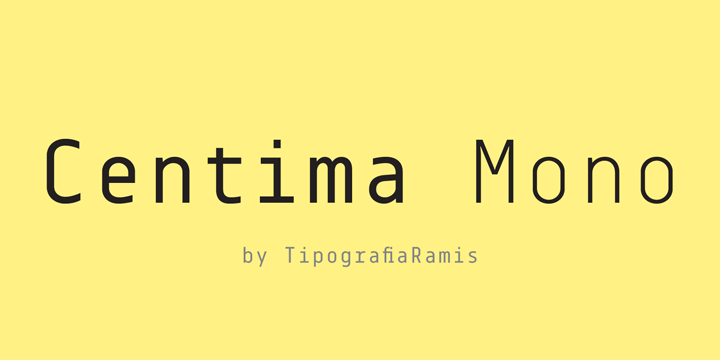
Centima Mono Font is perfect for programming code editors, technical software interfaces, financial data displays, scientific research documentation, terminal application screens, coding bootcamp materials, data analysis dashboards, system administration tools, software development platforms, and professional programming education resources. Its precise monospaced character makes it ideal for projects requiring coding clarity and technical precision authenticity.
What makes Centima Mono Font exciting is its intelligent embodiment of coding precision and technical clarity with balanced letterforms and programming-optimized characteristics that capture the essence of modern software development and technical communication excellence. The font features equal character widths, optimized programming legibility, and systematic character construction that create authentic technical atmosphere and coding appeal. Its professional personality brings clarity and efficiency to contemporary designs while maintaining the precision essential for code readability and technical presentations. The carefully engineered monospaced elements ensure perfect alignment while preserving the distinctive character that embodies the essence of programming excellence and technical sophistication.
Centima Mono Font comes in multiple technical variations including Light, Regular, Medium, Bold, and Code styles. Each family member maintains the distinctive monospaced character while offering comprehensive weight options for programming typography and technical brand system development. The complete font family includes programming symbols, technical ligatures, and coding punctuation marks that provide essential tools for technical communication excellence and programming presentation quality.
Whether you're developing developer tools, technical education platforms, or programming-focused projects, Centima Mono Font Free Download provides the coding precision needed to communicate with programming audiences and technical professionals who appreciate code readability and systematic design excellence. The font's technical appeal resonates with developers, software engineers, and technical educators seeking authentic programming credibility and monospaced sophistication. Its comprehensive character set includes programming symbols and technical marks, making it perfect for creating complete developer brand systems and memorable technical storytelling across diverse coding applications and programming-focused design projects that celebrate software craftsmanship and technical excellence.